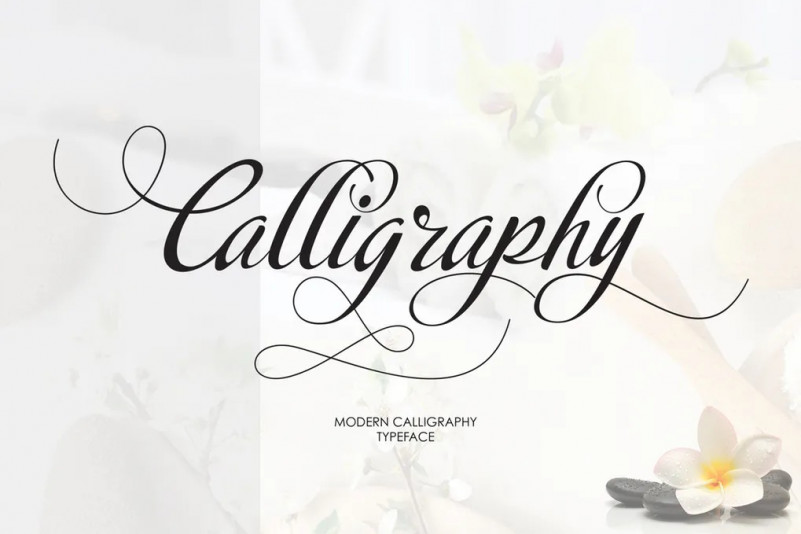
Calligraphiy Font
Calligraphy script Is a hand calligraphy, smooth, modern and clasik, calligraphy wavy, which was created to meet the needs of your next design project, hopefully you like it. Calligraphy script, Can used for various purposes. such as the title, signature, logo, correspondence, wedding invitations, letterhead, signage, labels, newsletters, posters, badges, etc.